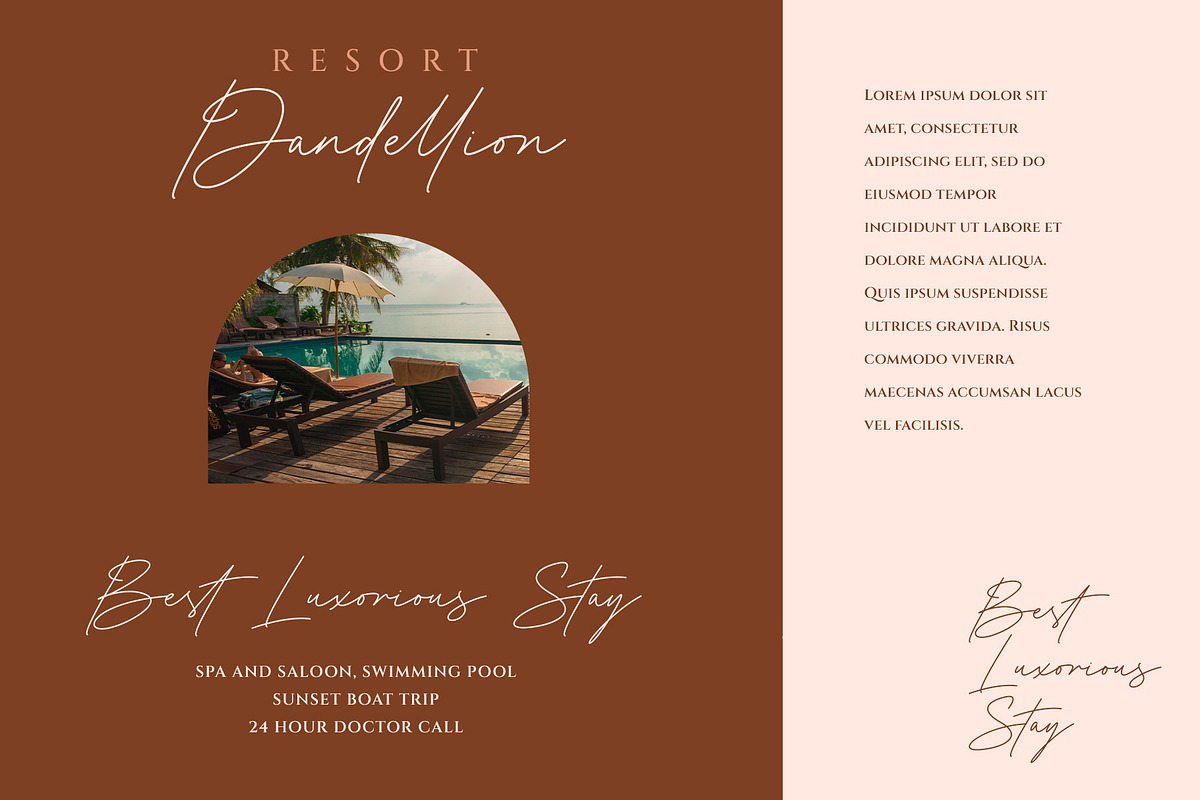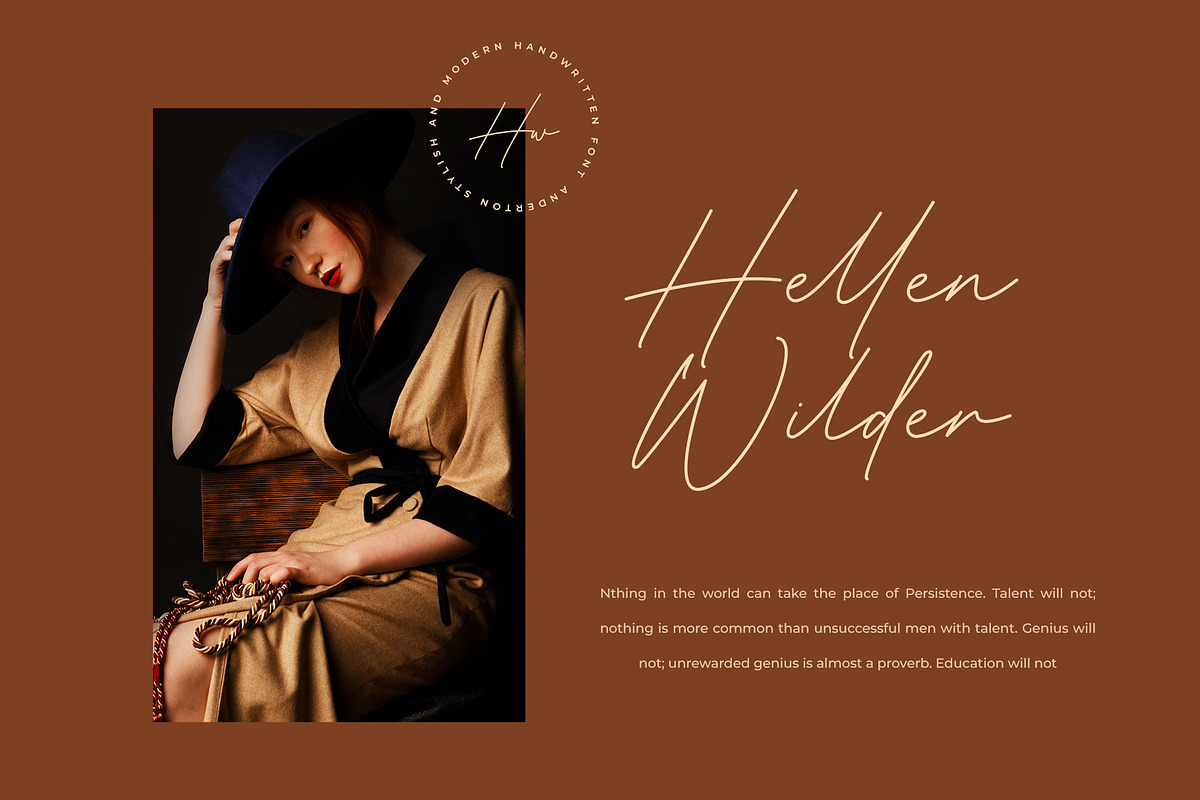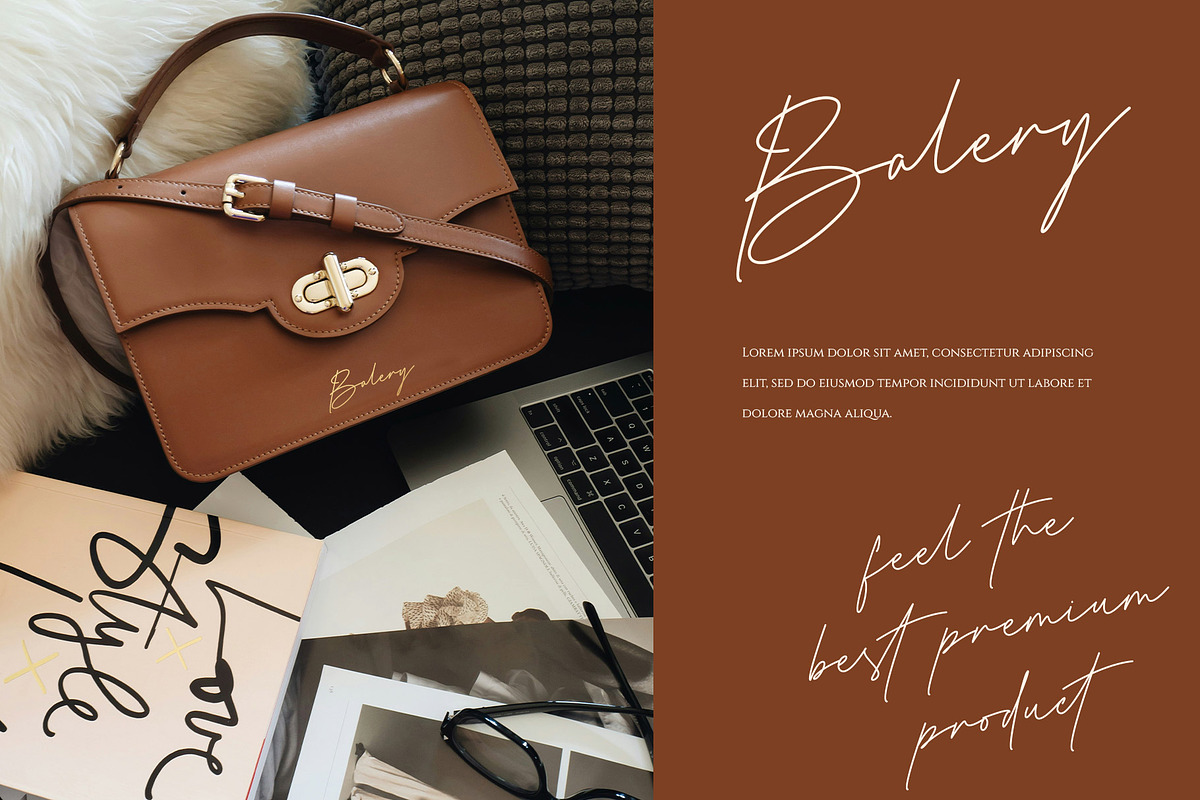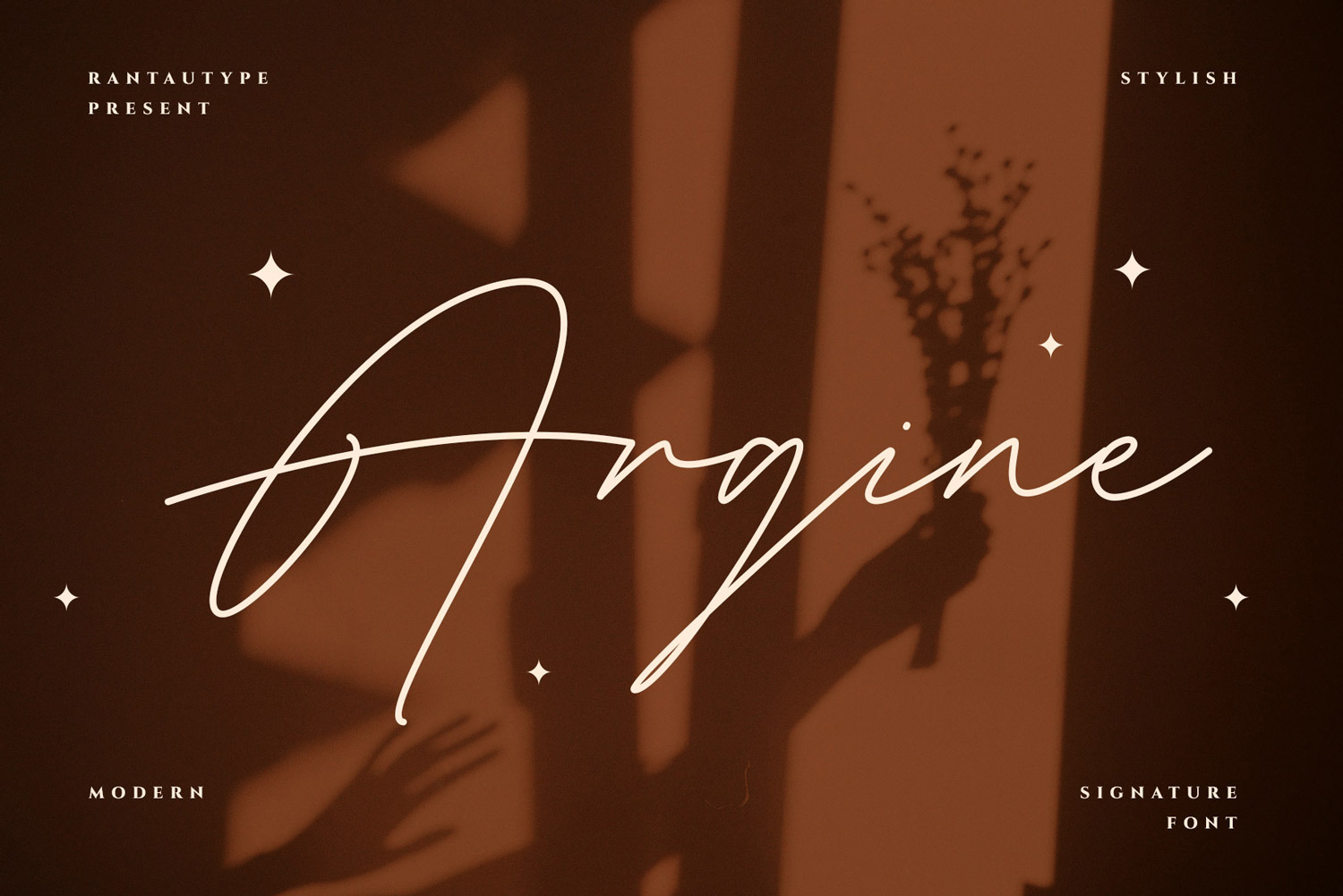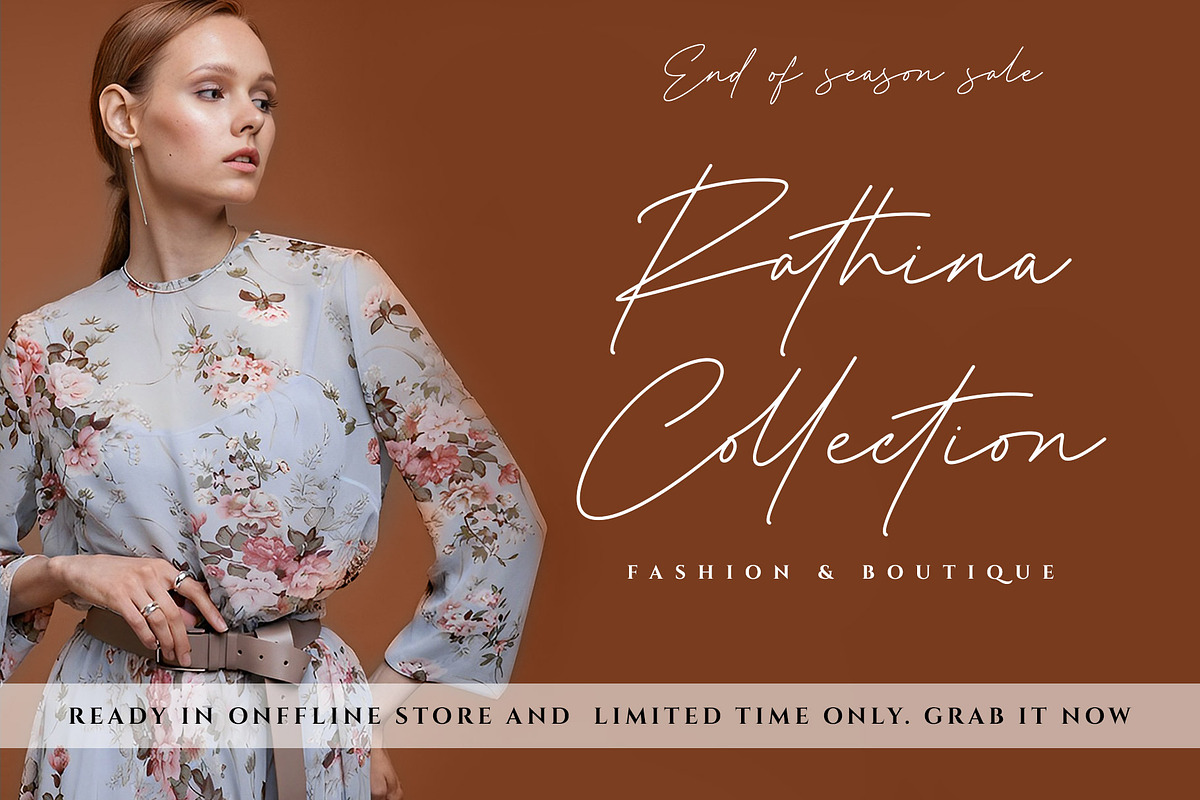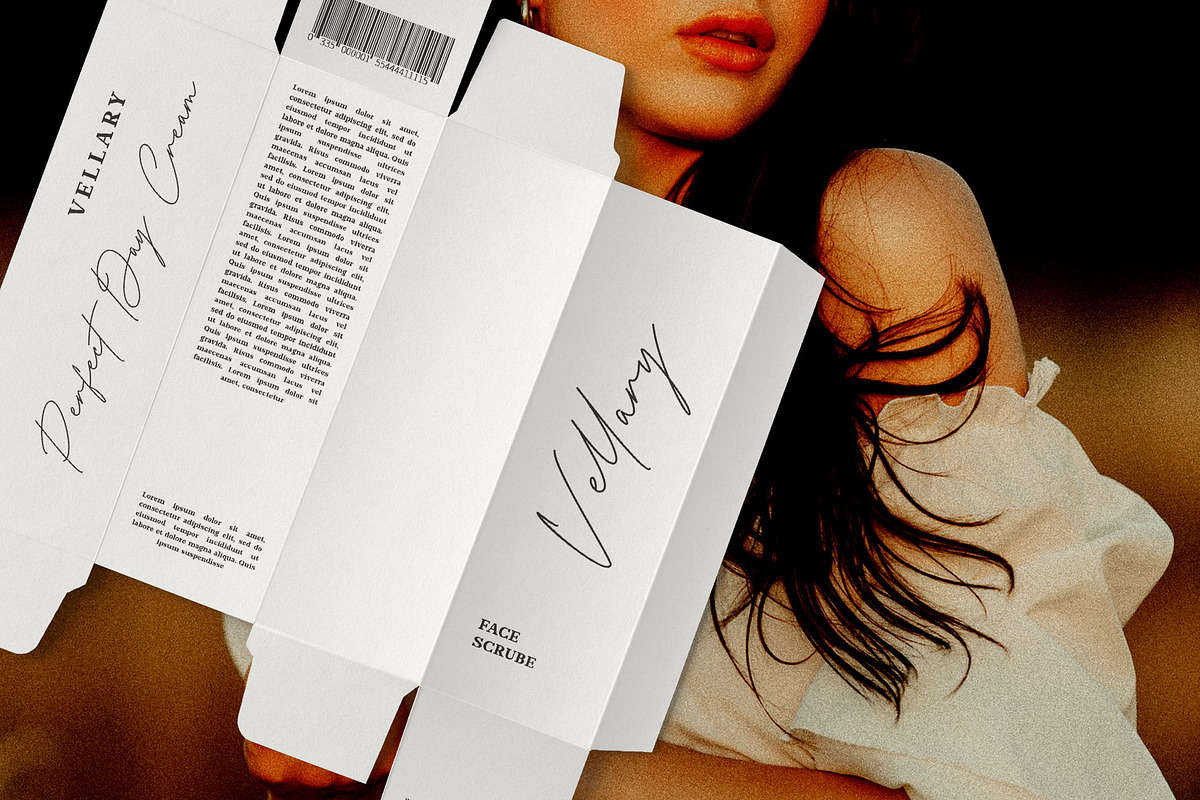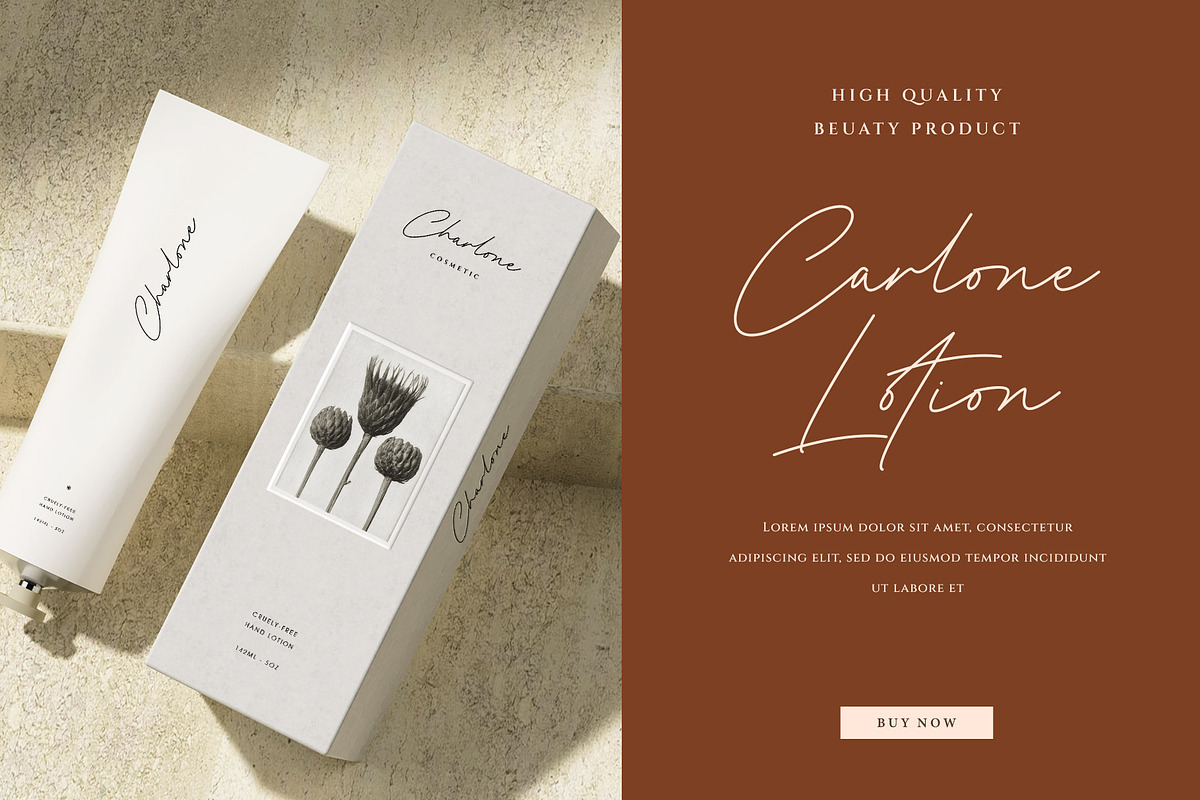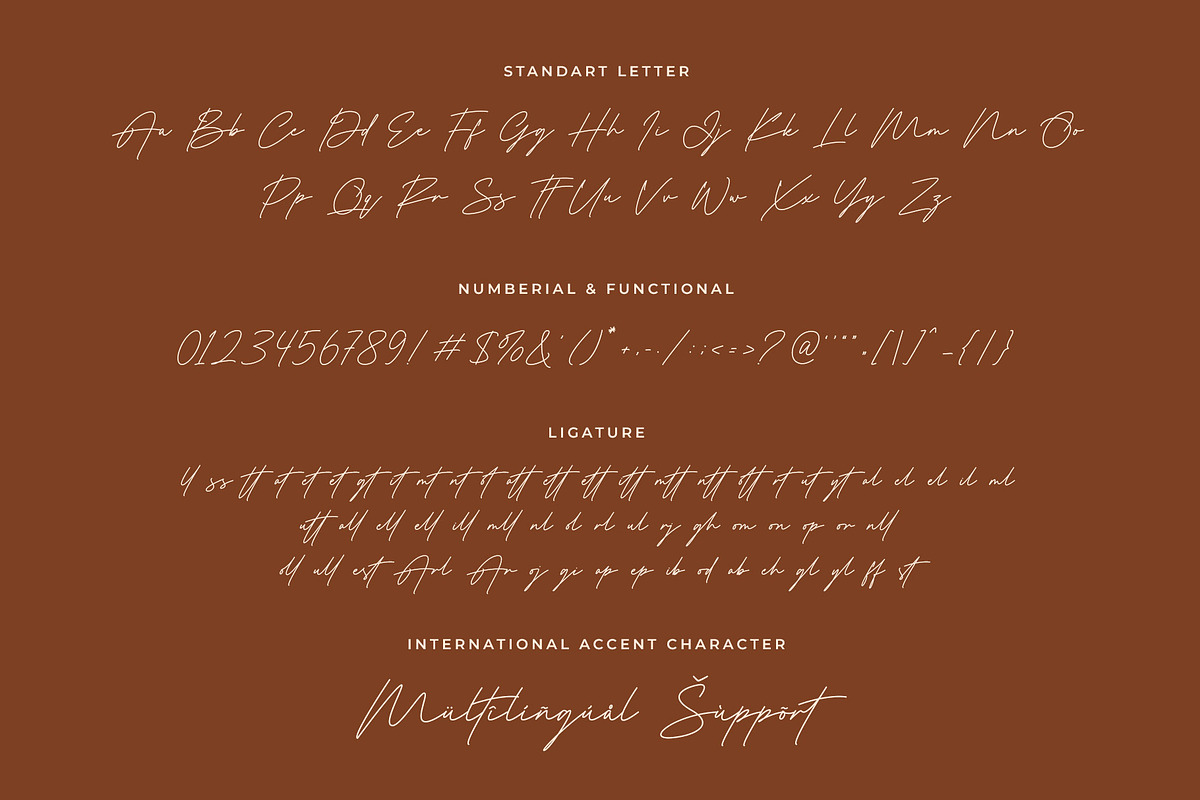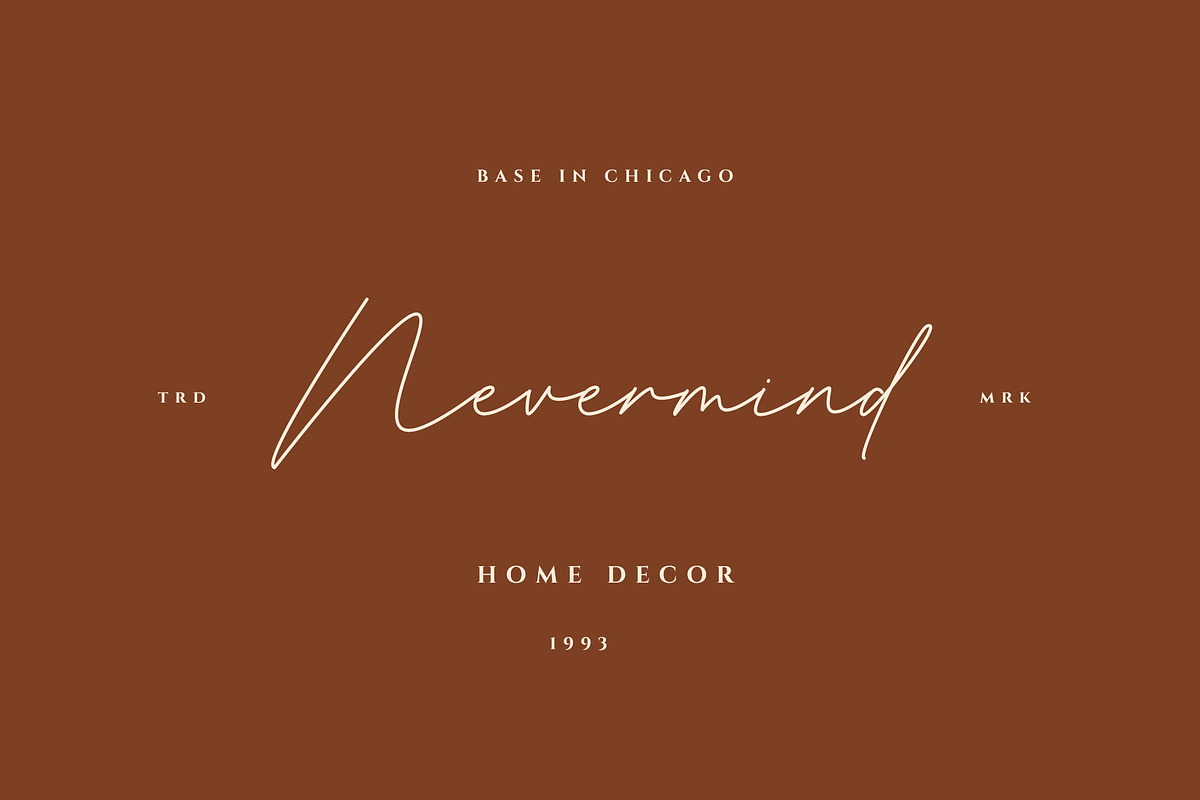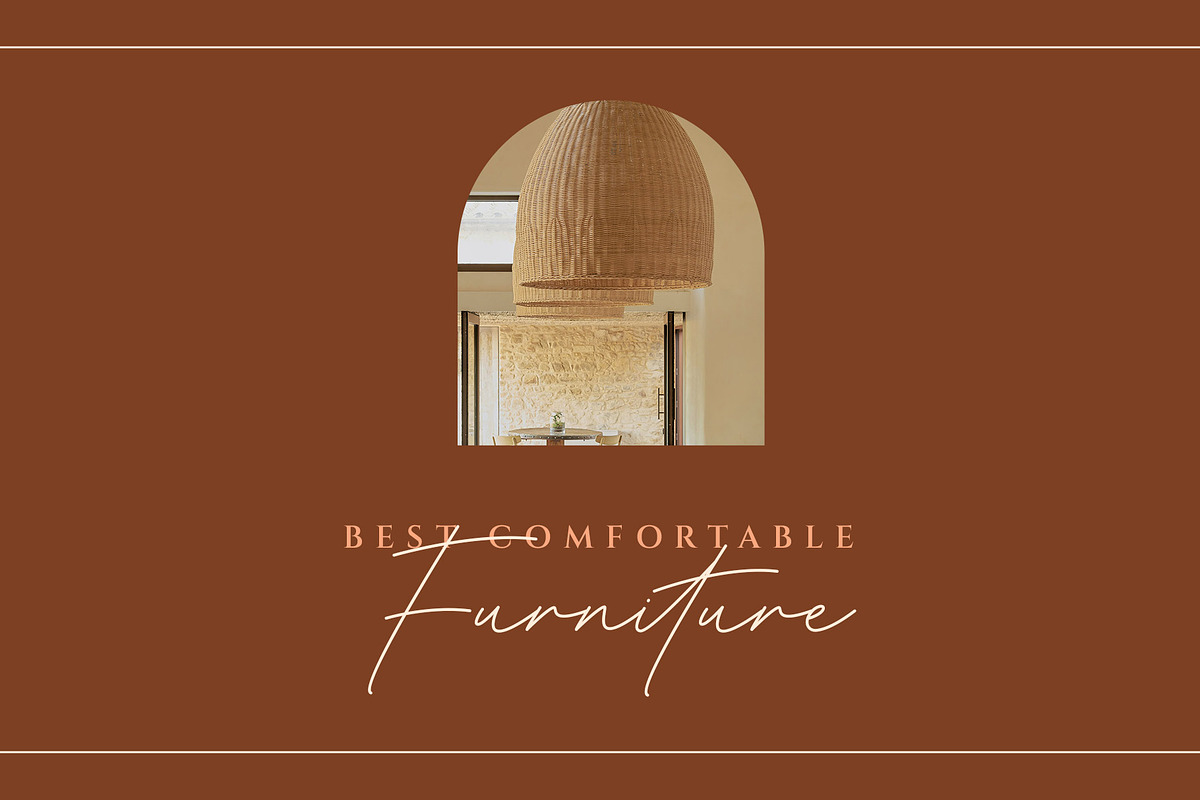
Argine Signature Font
Argine is creative signature business font which can be interpreted professional with stylish and natural curve. We keep this font looks modern, minimalist, elegant, readable, stylish, catchy and easy to use. Argine come with ligature and multilingual accent support.
Argine is a beautiful choice for any creative endeavor, chic, lifestyle design such as logos, title, watermark on photography, cover, branding, display and magazine, wedding event, quotes, album cover, business card, corporate, business project and many other design project. Argine to elevate you branding!!
- Standar character A-Z and a-z
- Multilinggual accent support